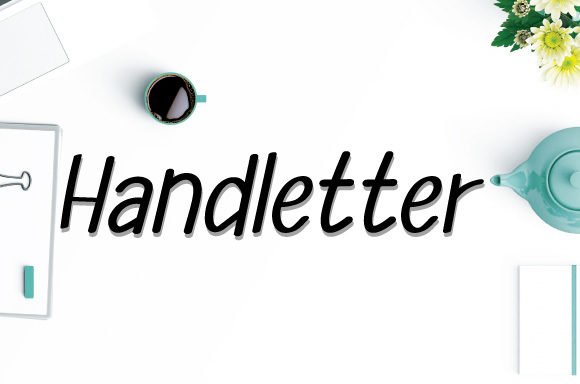
The Perfect Match for Your Creative Vision
Have you ever stared at a blank page, waiting for the perfect idea to strike? It’s that moment when the creative juices start flowing, and you know exactly what you want to create. For designers, it’s the spark that ignites a new project, and the right font can make all the difference.
That’s where the Handletter Font comes in – a clean and casual handwritten font that brings a touch of natural elegance to any design. With its unique style, Handletter Font is the perfect companion for a wide range of creative ideas, from elegant wedding invitations to modern blog headers.
For designers, the Handletter Font is a valuable tool that adds a personal touch to any project. Its versatility and sophistication make it a go-to choice for those who want to stand out from the crowd and create truly unique designs.
Handletter Font Key Features
- Font Family: Handletter is a script font family available in various weights and styles.
- Size and Resolution: Handletter is designed to be used at medium to large sizes (min. 12pt) and at resolutions of 72 dpi and 96 dpi.
- Unique Characteristics: Handletter features a unique, handwritten style with subtle brush strokes and irregular letterforms, perfect for adding a touch of personality to your designs.
- Language Support: Handletter supports a wide range of languages, including Latin, Cyrillic, and Greek alphabets.
Handletter Font Review
Overall, I’m impressed with the Handletter Font, but it’s not without its quirks.
- Unique and quirky character: The Handletter Font has a distinct personality that can add a touch of whimsy to your designs.
- Good legibility: Despite its cursive nature, the font is generally easy to read, especially at larger font sizes.
- Customizable: The font comes in a range of weights and styles, making it easy to find the right fit for your project.
- Limited language support: The Handletter Font may not include all the necessary characters for languages that use non-Latin scripts.
- Not suitable for small text: At smaller font sizes, the Handletter Font can become difficult to read due to its cursive nature.
- No bold or italic variants: While the font comes in a range of weights, it’s missing bold and italic variants, which can limit its versatility.
While the Handletter Font has its limitations, its unique character and good legibility make it a great choice for projects that require a touch of personality. However, it may not be the best fit for projects that require a high level of customization or support for non-Latin scripts.
For best results, use Handletter Font for headings, titles, and quotes. It’s also great for creating custom invitations, social media graphics, and branding materials.
Remember to experiment with different font sizes, colors, and combinations to achieve the desired look.
Handletter Font is ideal for creating a personal, handwritten feel in your designs.
Alternatives to Handletter Font
Great Vibes is a beautiful, handwritten script font that is perfect for creating a fun and playful atmosphere. It is ideal for use in branding, advertising, and social media graphics. Great Vibes is more elegant and refined compared to Handletter Font, making it suitable for high-end designs.
Pacifico is a modern script font that is inspired by the Pacific Ocean. It is perfect for use in designs that require a relaxed and beachy vibe. Pacifico is more cursive and flowing compared to Handletter Font, making it ideal for use in invitations, greeting cards, and wedding designs.
Carolyna Pro is a luxurious, handwritten script font that is perfect for use in high-end designs. It is ideal for use in branding, advertising, and luxury packaging designs. Carolyna Pro is more refined and sophisticated compared to Handletter Font, making it suitable for use in premium products.